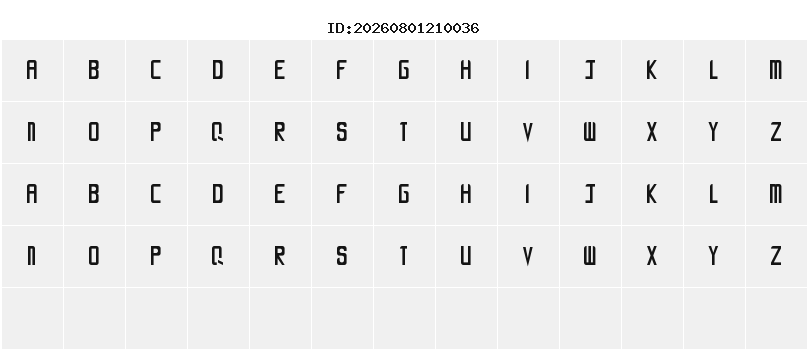
LA CALLE 6 Preview
• Font Name: LA CALLE 6
• Designer: Luis Jaramillo
• Manufacturer: LJ-Design Studios
• Description: Una historia urbana vivida en mi pueblo
About LA CALLE 6.ttf
LA CALLE 6.ttf is a modern, elegant sans-serif font designed for ultimate readability and visual harmony. Perfect for branding, headlines, web design, and print materials.